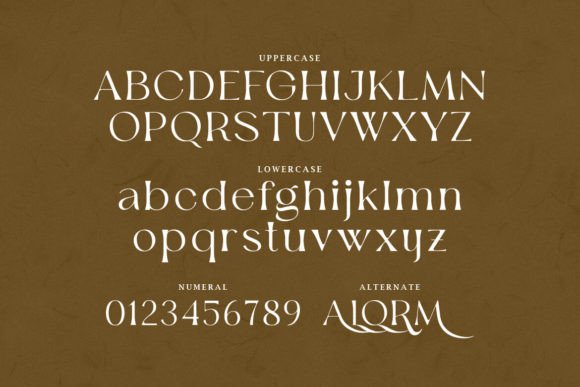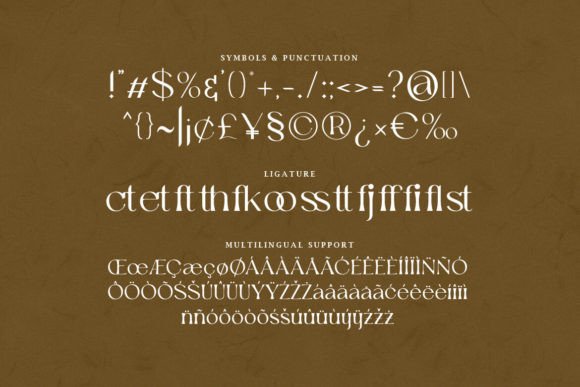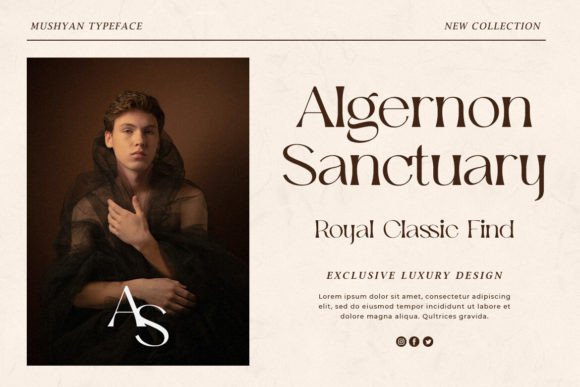
Introduction to Mushyan Font
Discover the timeless beauty of β€œMushyan” – a simple serif typeface that embodies elegance and clarity.
Embrace the simplicity of β€œMushyan” as it effortlessly communicates sophistication and professionalism Whether you’re crafting elegant headlines, refined logos, classic invitations, or modern interfaces, this typeface will bring a touch of timeless charm to your designs.
Key Features of Mushyan Font
Why Choose Mushyan Font?
Mushyan Font offers exceptional quality and versatility, making it a valuable addition to your design toolkit. Whether you’re creating for personal projects or commercial use, Mushyan Font delivers professional results.